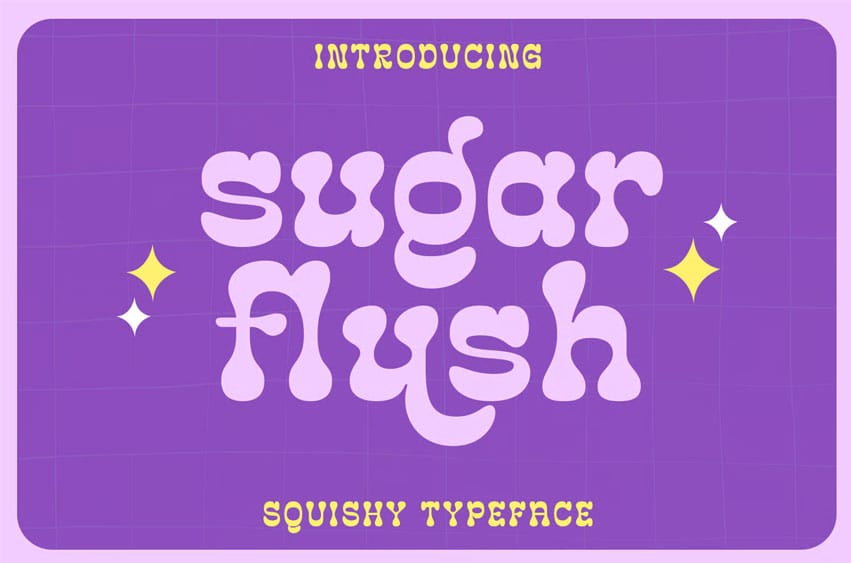
Sugar Flush Font is a bubbly font that adds a touch of sweetness to any project. This font design with reverse contrast makes this font more unique and cubby. Ideal for playful quotes, packaging, branding, invitations, greeting cards, and more. Say hello to endless creative possibilities with Sugar Flush!